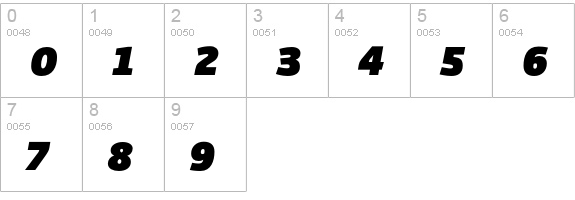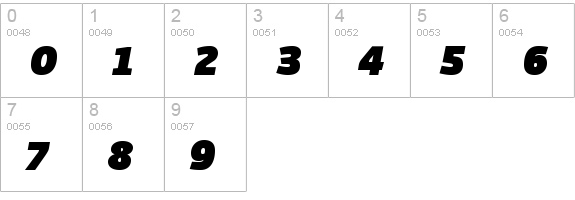
Vinkel Extra Black Italic Font Details
Vinkel Extra Black Italic is a maximum-weight, dramatic, italic variant in the Vinkel typeface family \xE2\x80\x94 well suited to maximum-impact headlines, posters, and packaging.
Vinkel Extra Black Italic is a bold and stylish font that exudes modern elegance and sophistication. With its sleek lines and sharp angles, this typeface makes a strong statement and commands attention. The italicized version adds a touch of flair and dynamism, making it perfect for adding emphasis and visual interest to your designs. What sets Vinkel Extra Black Italic apart is not just its striking appearance, but also the fact that it is completely free to download. You can easily access this stunning font at FontsMarket.com, where you can enhance your projects with its unique and eye-catching aesthetic without any cost. Whether you're designing a poster, branding materials, or any other creative project, Vinkel Extra Black Italic is sure to make a bold and impactful impression. Download it today and elevate your designs with this exceptional typeface.